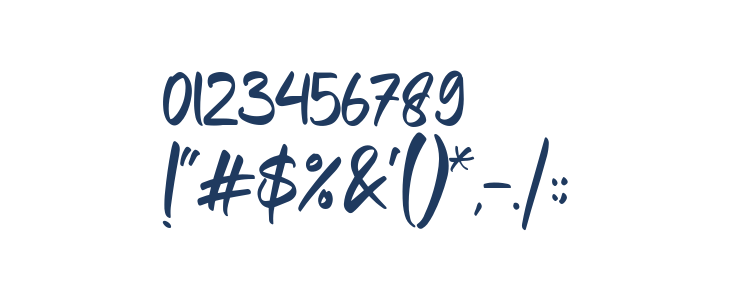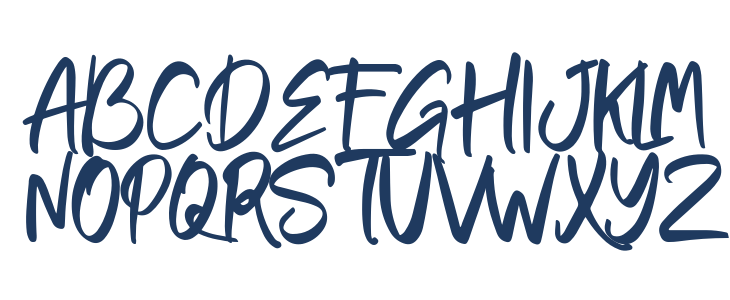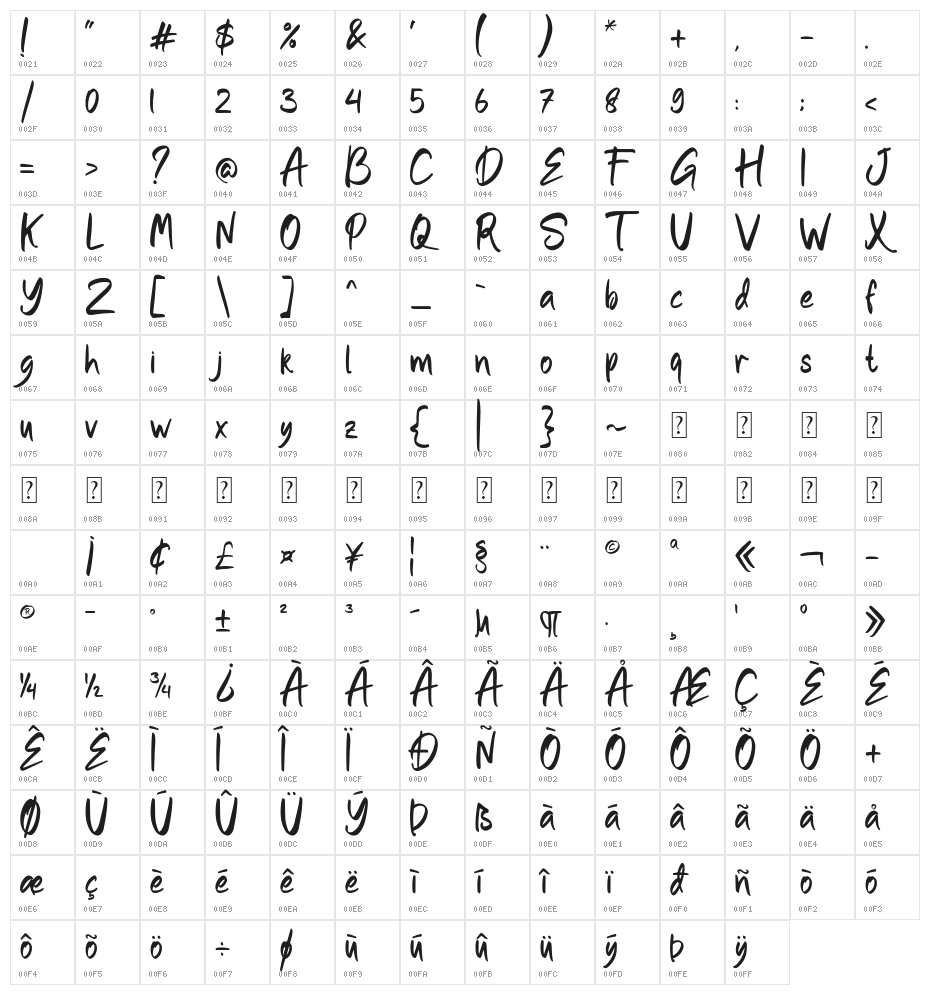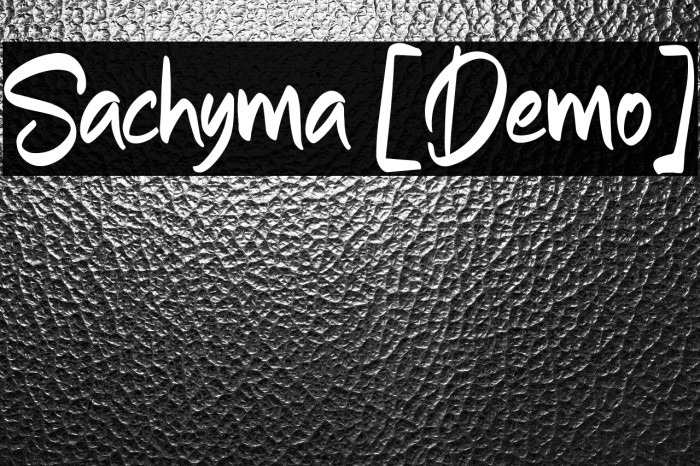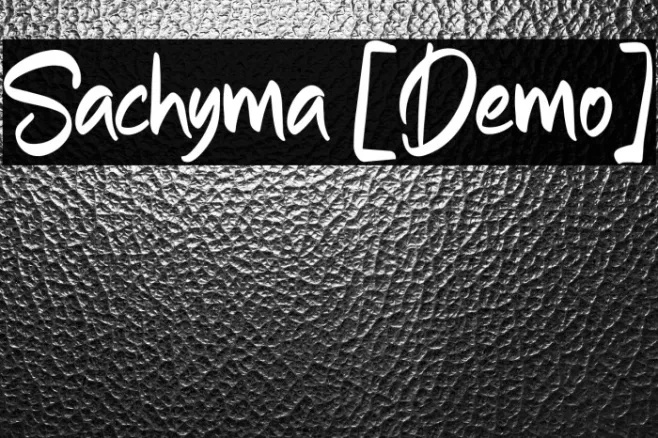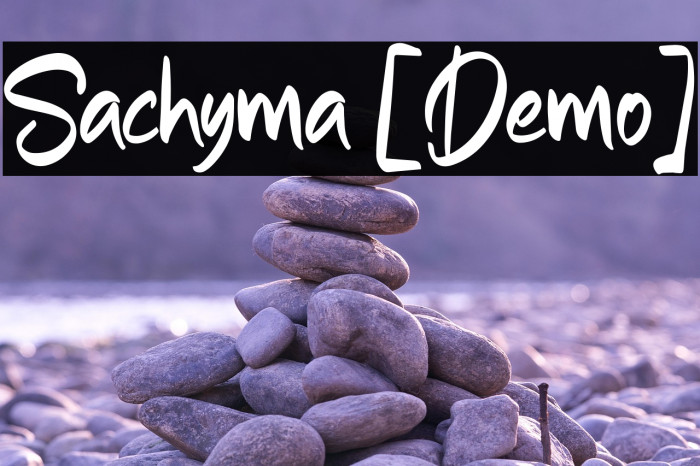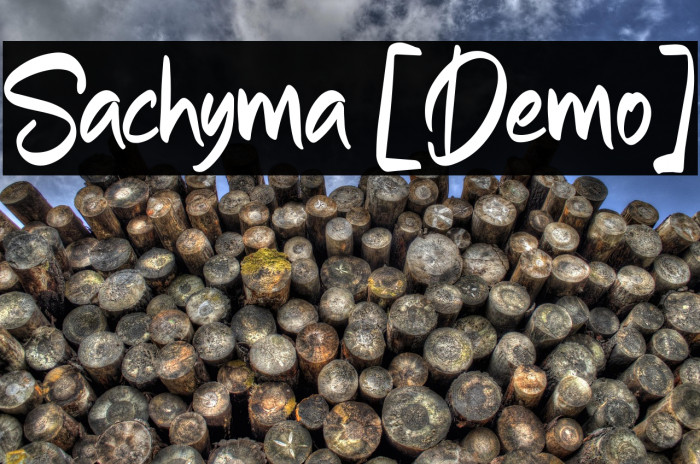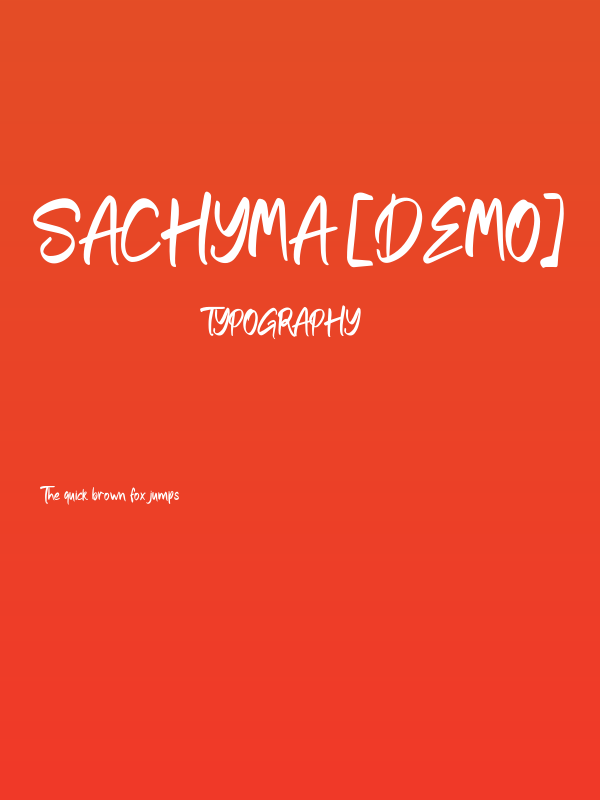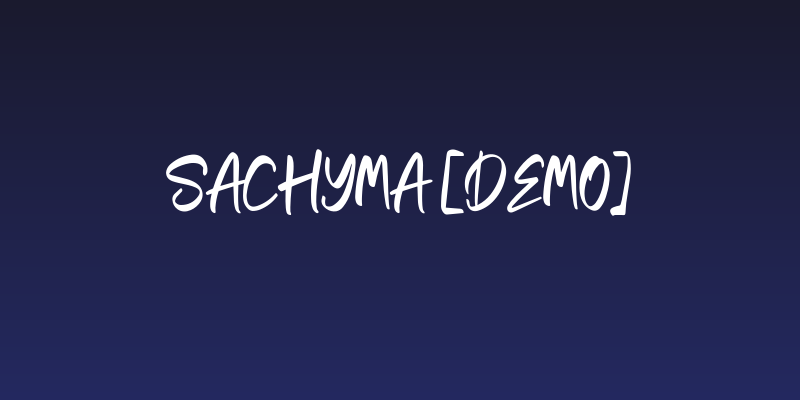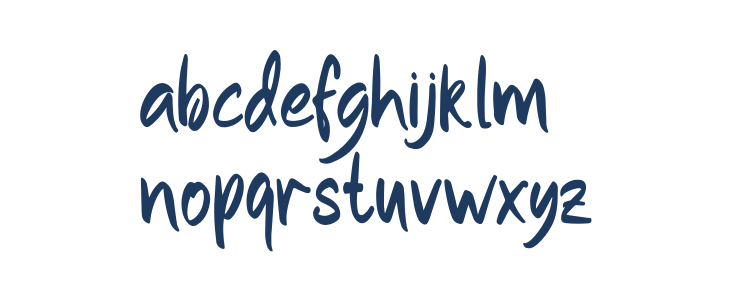
Sachyma [Demo] Font
Sachyma [Demo] Description
This font features a dynamic and expressive handwritten style, characterized by its fluid and energetic strokes. The letters have a casual and informal appearance, with varying stroke widths that add a sense of movement and personality. The uppercase letters are bold and slightly slanted, while the lowercase letters maintain a consistent flow, enhancing the overall cohesiveness of the design. The numerals and special characters are crafted with the same lively flair, making them suitable for creative and artistic projects. The font's playful nature makes it ideal for designs that require a personal touch.